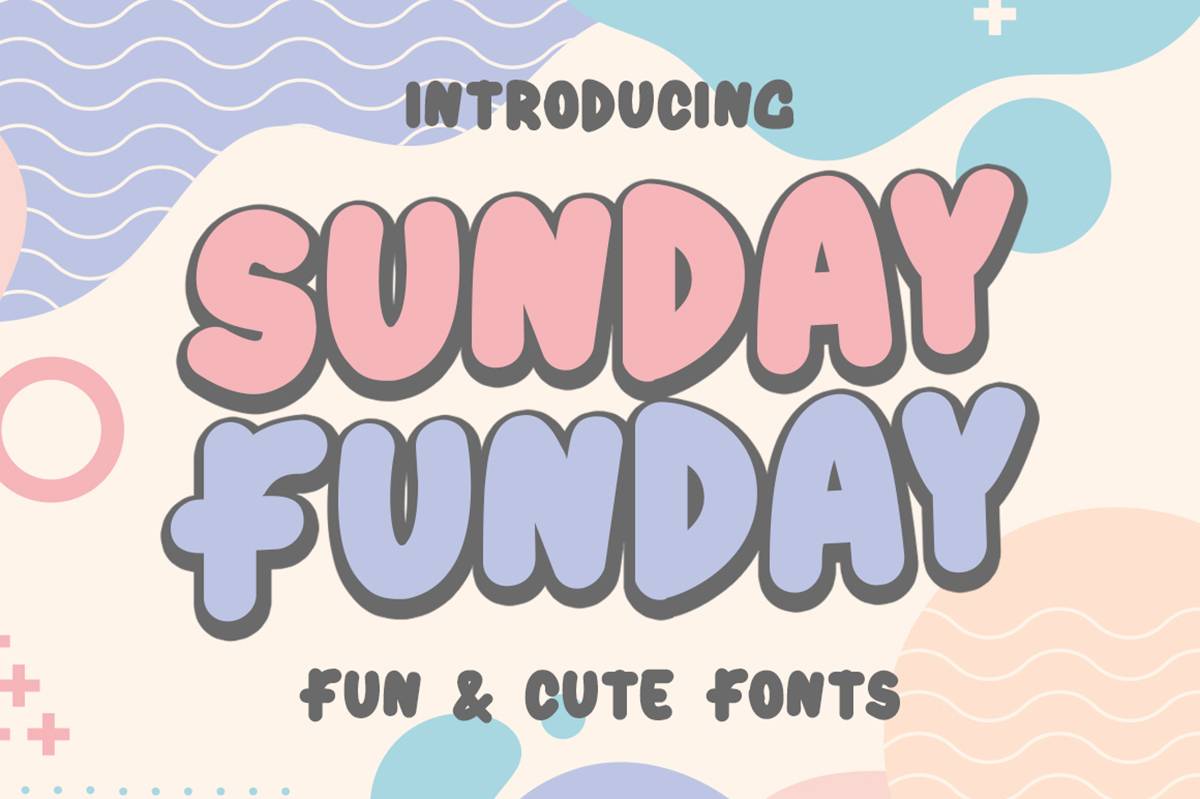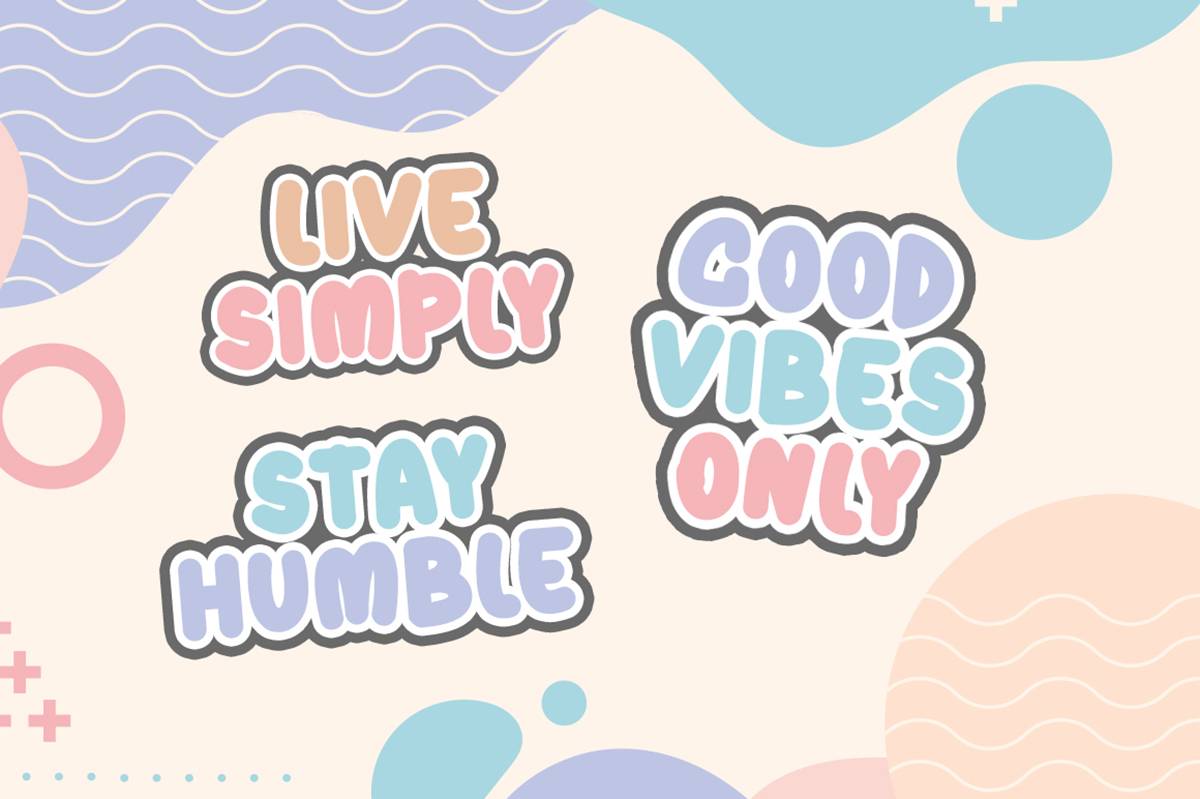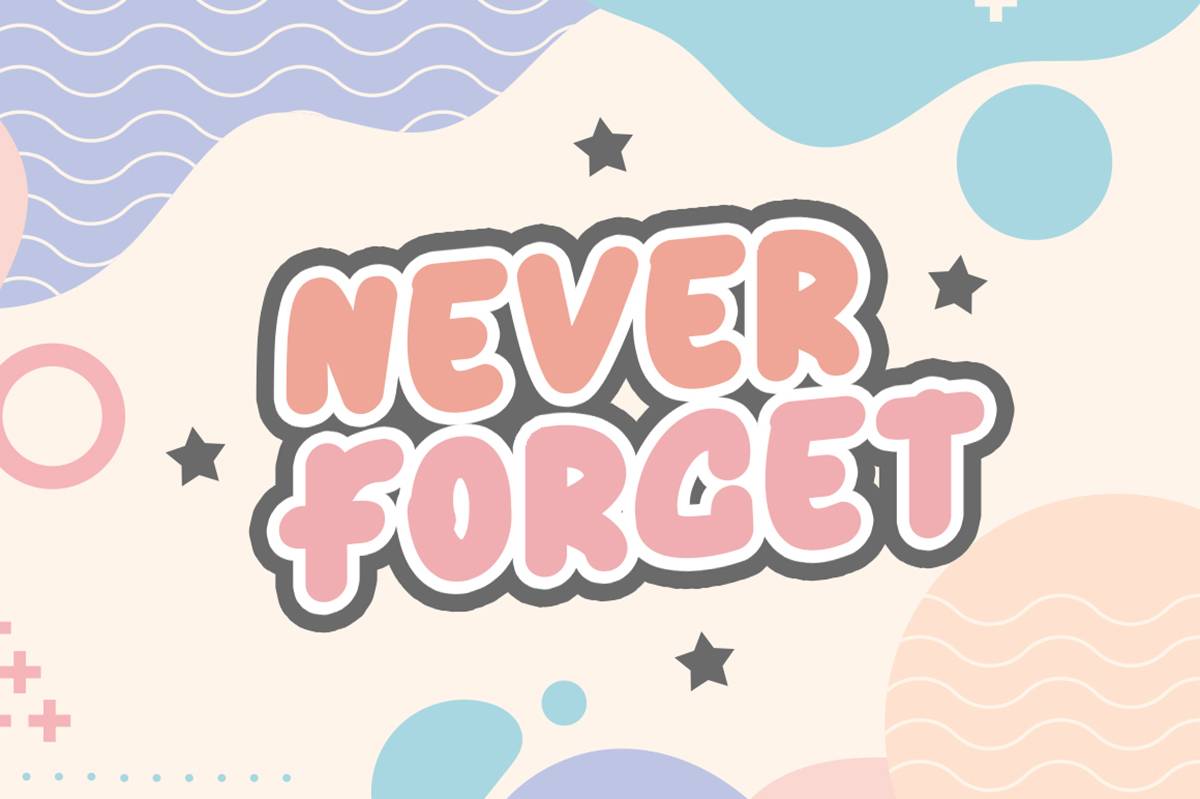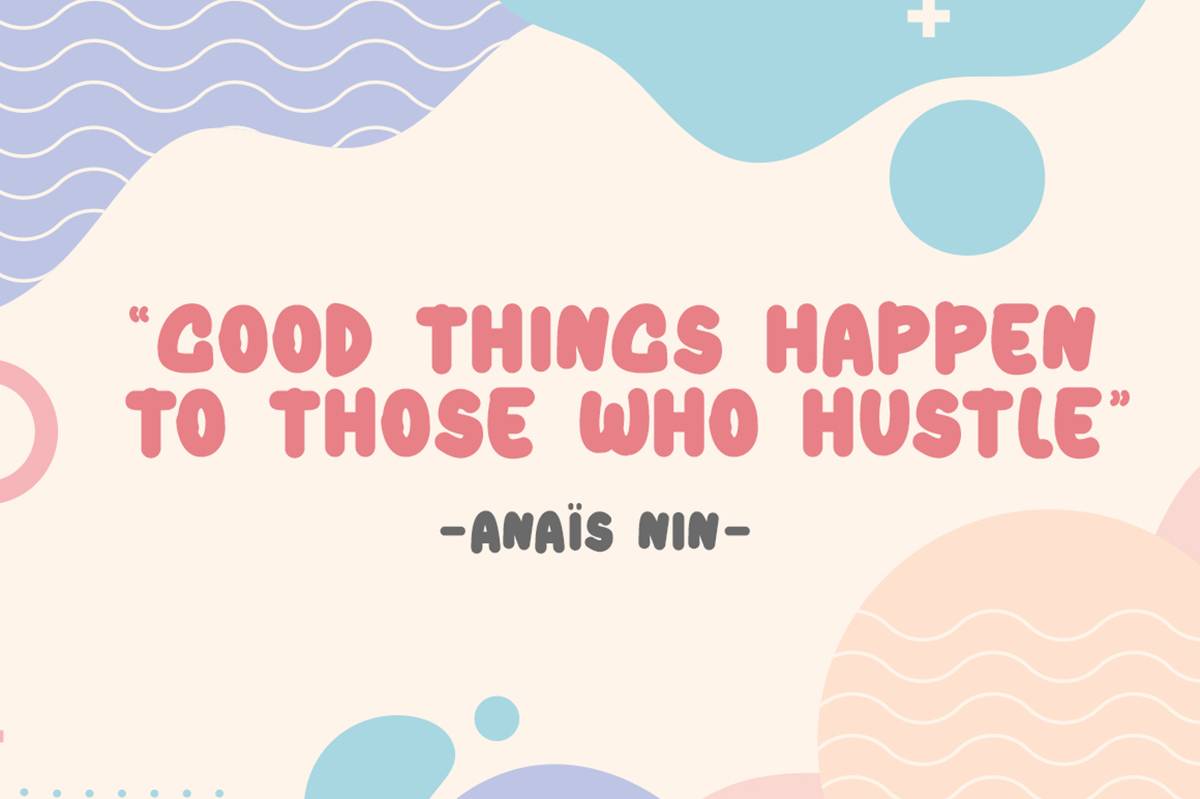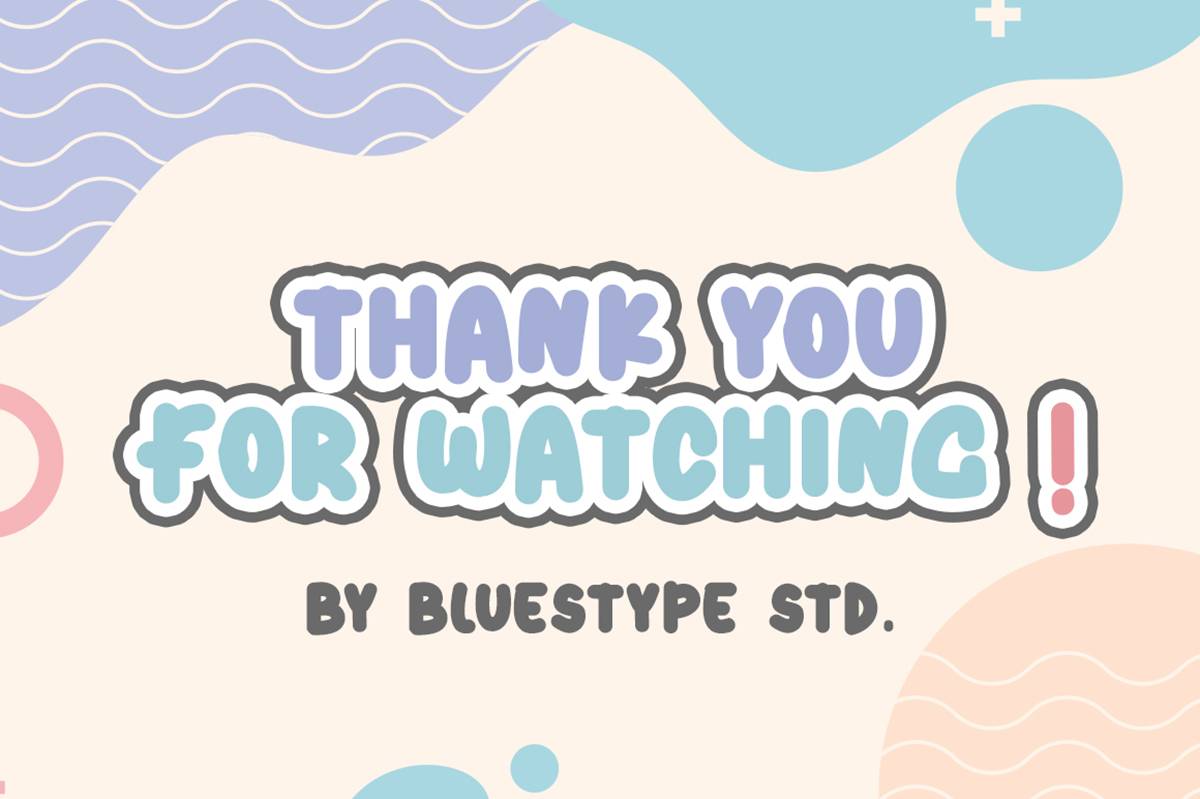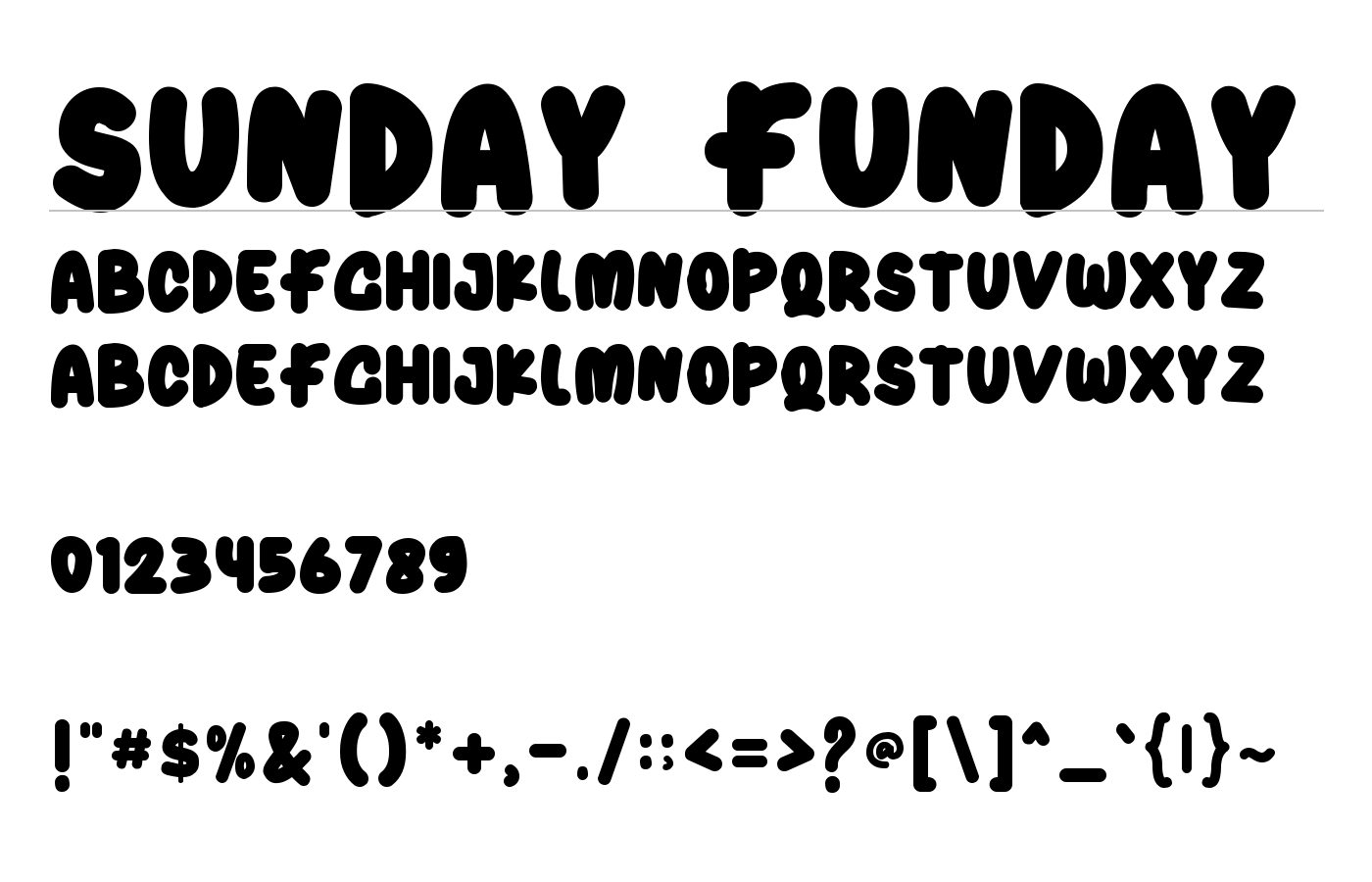
Sunday Funday is a bold, playful sans serif font with rounded, chunky letterforms that give it a friendly and approachable vibe. Its consistent weight and soft curves make it perfect for fun, casual designs like children’s products, party invitations, and upbeat branding, where a lively and informal tone is desired. This font works especially well in headlines and logos that need a touch of whimsy and cheerfulness.
Sunday Funday Font
About Sunday Funday Font
| Font family | Sunday Funday Font |